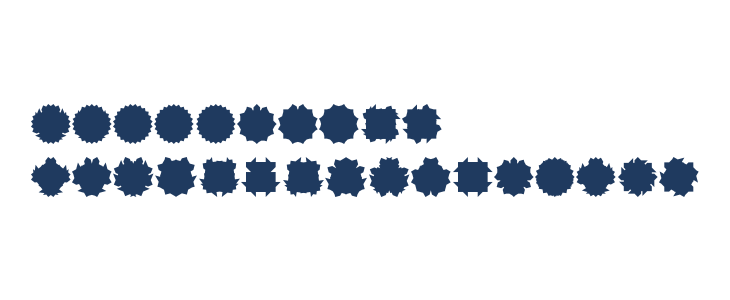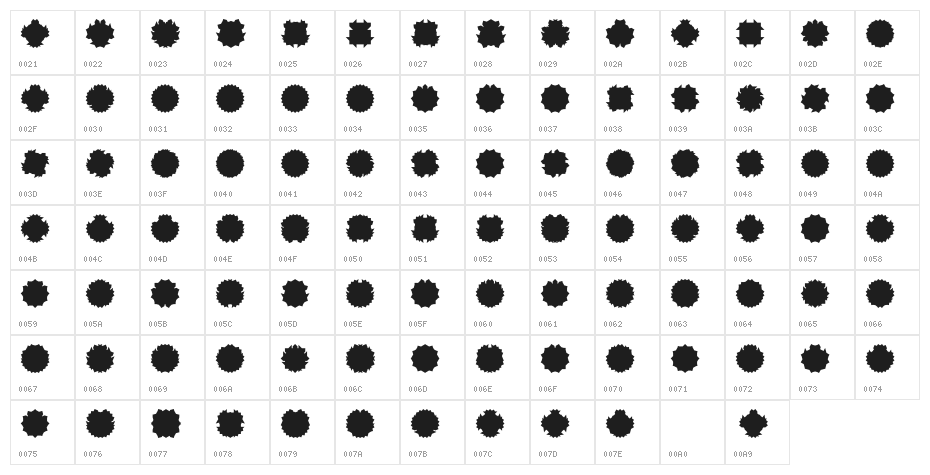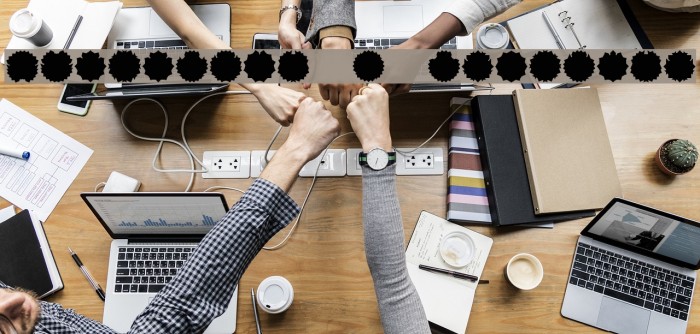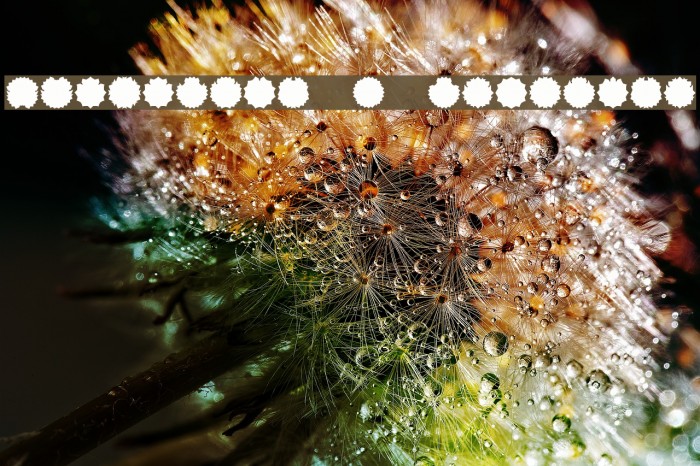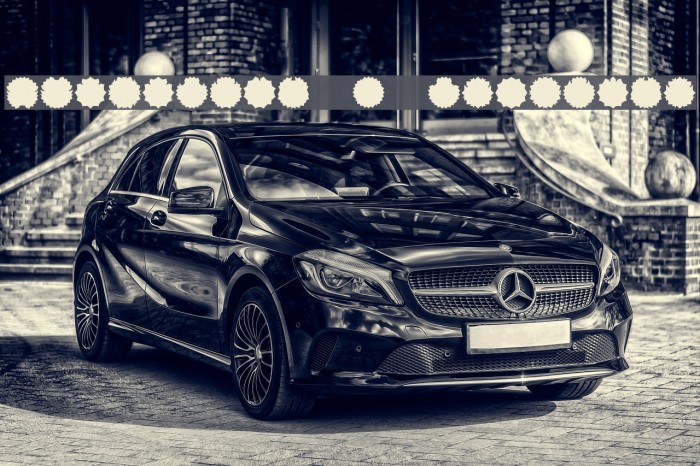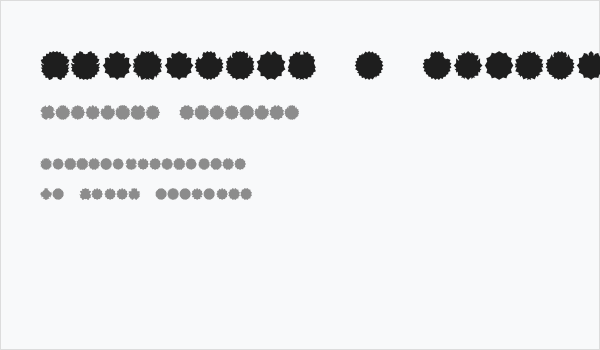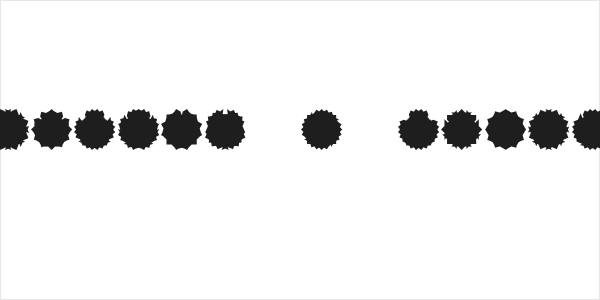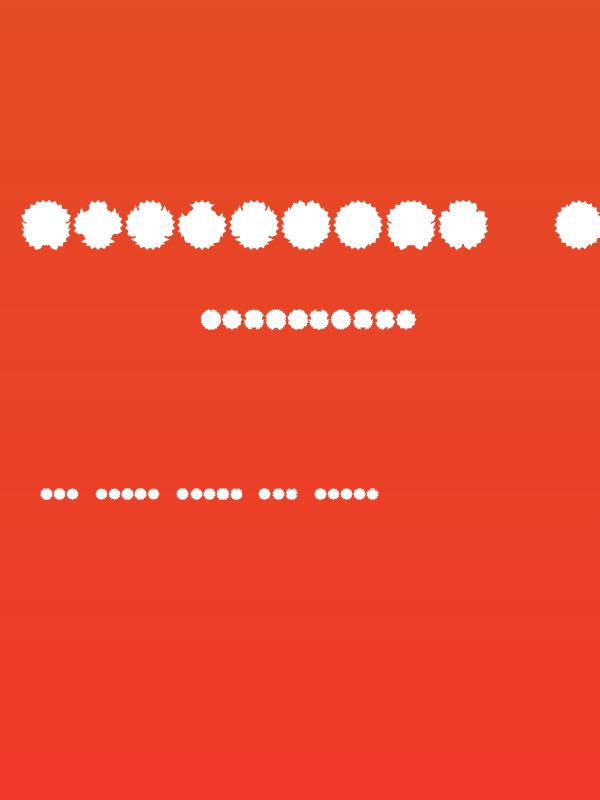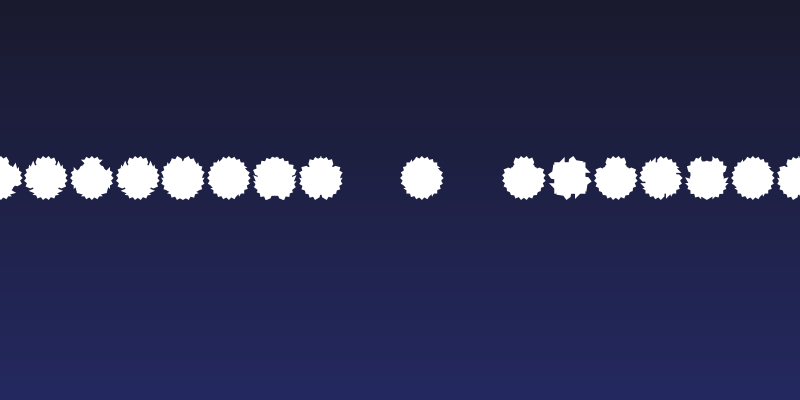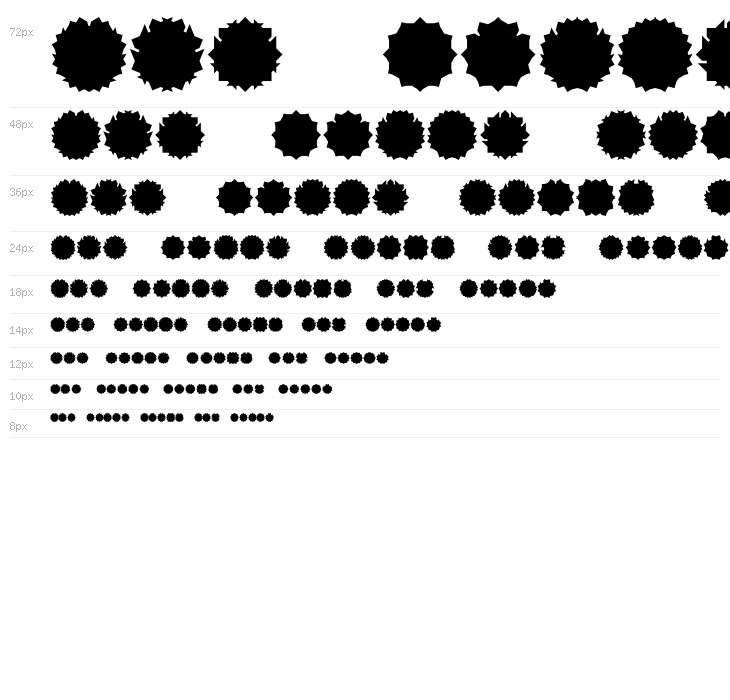
Ovulution I Membrane Font
Ovulution I Membrane Description
This is not a valid font. The image appears to contain abstract shapes or symbols that do not correspond to any recognizable alphabet or numeric system. The elements are irregular and do not form coherent characters that could be used in typography.